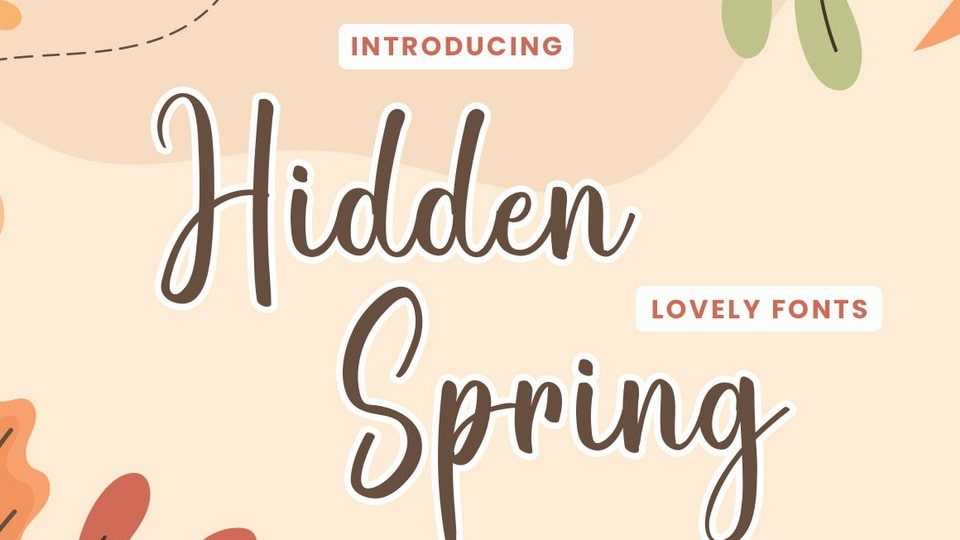
Download Hidden Spring font, a cute handwriting and colorful display typeface. It embodies playfulness and authenticity and is the perfect choice for amazing project.